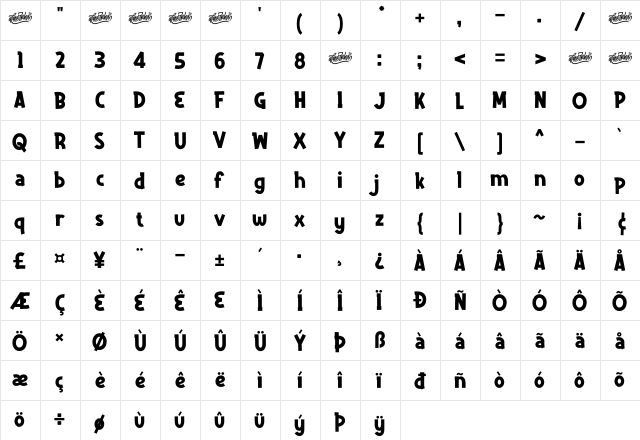
Delninoys Regular
| Designer | Almarkhatype - Abdul Malik - Adriansyah |
Design Context for Delninoys Typeface
Delninoys offers clean, dependable letterforms without strong stylistic allegiance, making it a practical choice for designers who need flexibility.
Pro Tip: Pair Delninoys with a font of contrasting weight or personality to build a more expressive typographic hierarchy.